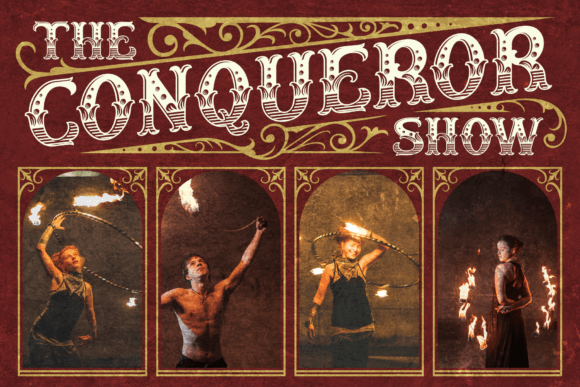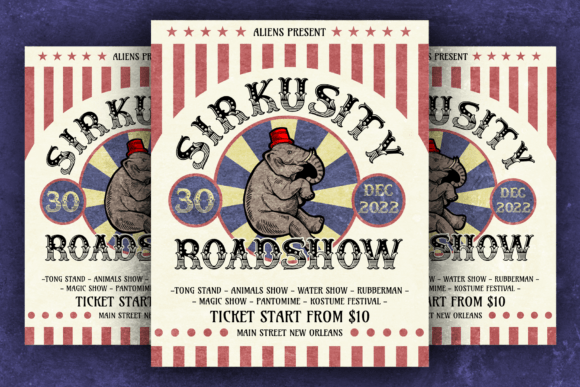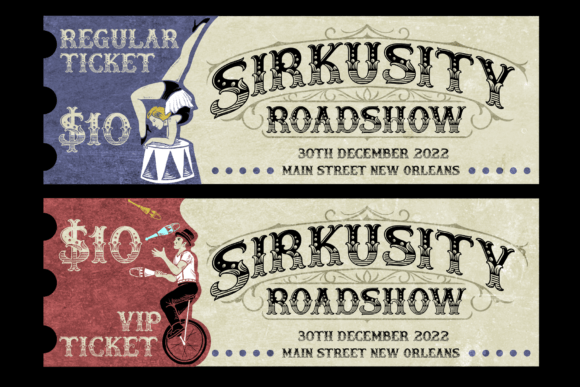
Introduction to Sirkusity Font
Sirkusity is an incredibly stylish and unique decorative font, inspired by the fabulous world of the circus.
Add this original font to any project that requires a vintage, cabaret-style look and you will be astounded by the generated outcome .
Why Choose Sirkusity Font?